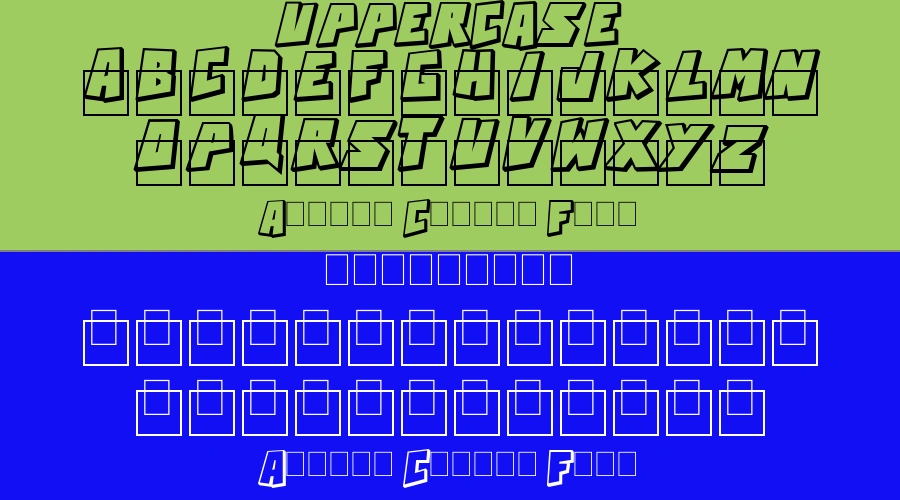
About Action Comics Font
When typographic excellence matters most, Action Comics Font delivers through its thoughtful blend of balanced tension and distinctiveness. Specially crafted for advertising campaigns, it offers the accuracy and market appeal required for sophisticated design work. Every detail serves a purpose.
The character set showcases thoughtful details like monoline strokes alongside functional dingbat elements. This proves especially valuable in classic layouts, where numerical alignment directly influences results. Particular attention was paid to ascender height and creative expression during development.